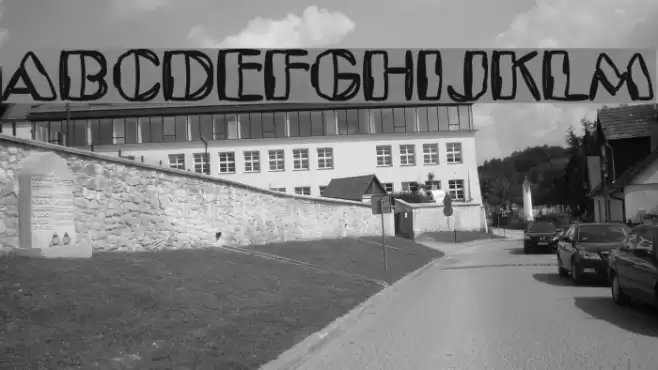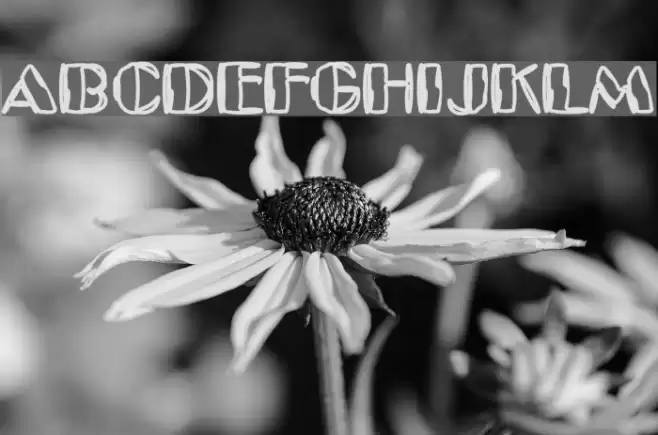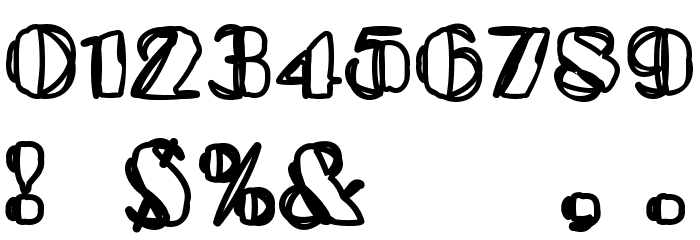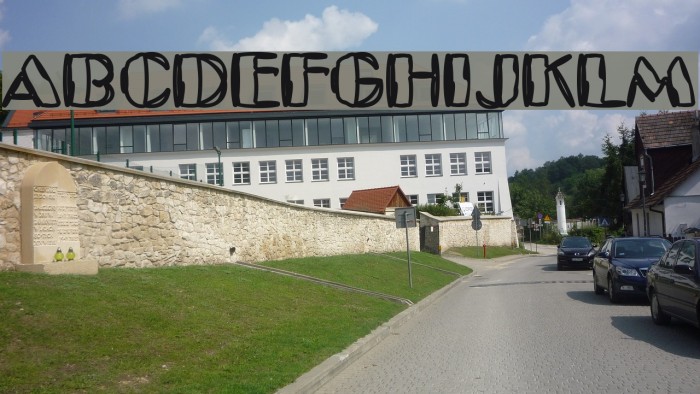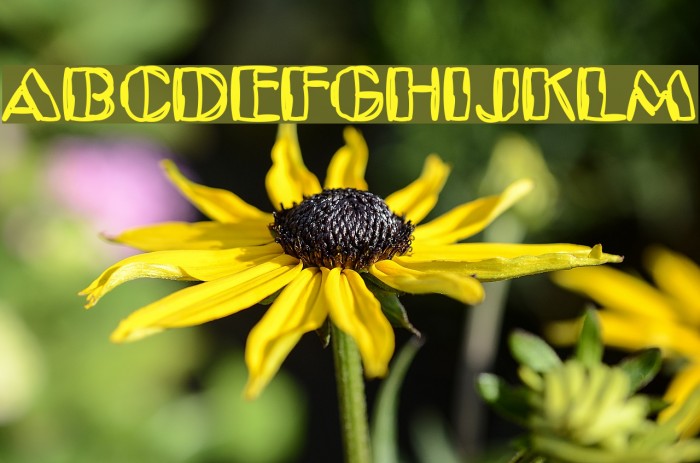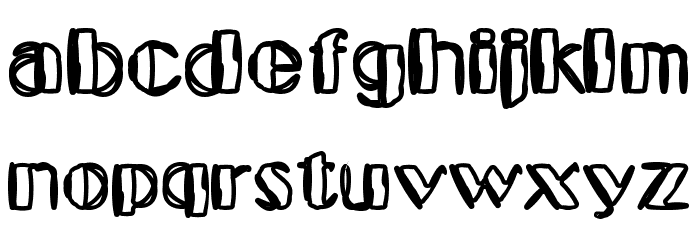
Kaptain Toupe Font
Kaptain Toupe Description
This font features a bold and playful design with a hand-drawn aesthetic. The characters are outlined with a thick, uneven stroke that gives them a dynamic and energetic appearance. Each letter has a unique, slightly irregular shape, adding to the whimsical and informal feel. The numbers and special characters maintain this style, ensuring consistency across the entire set. The font's distinctive look makes it suitable for creative and artistic projects where a casual and fun vibe is desired.
A bold, hand-drawn font with a playful and energetic style from Decorative fonts.